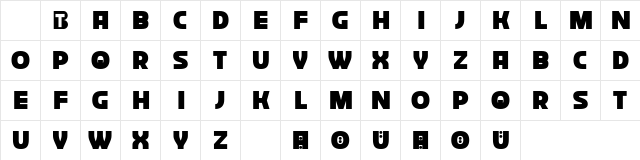
Complete Rudimentr Regular glyph index. Displaying only characters natively supported by Rudimentr Regular font.
Rudimentr is a composed and adaptable typeface that performs quietly and consistently across a wide range of design contexts.